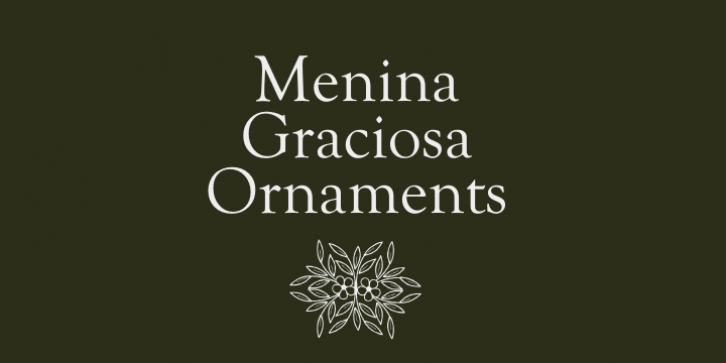
Menina Graciosa Ornaments is a beautiful font that was designed by Intellecta Design. It's a great choice for designers and creatives who need such a font. It was released on June 6, 2017 and the file size is 4.48 MB. Menina Graciosa Ornaments may give a more youthful, expressive and casual look to your project. It is a very beautiful, refined, elegant, and high-quality font.